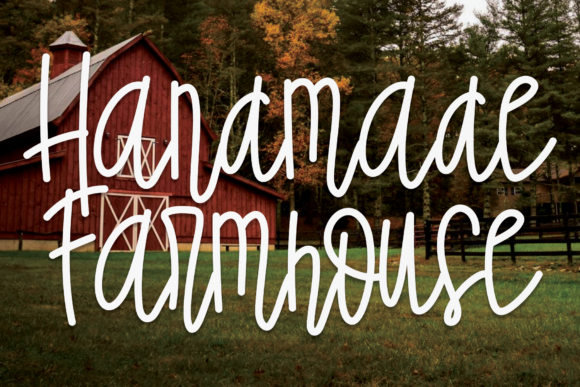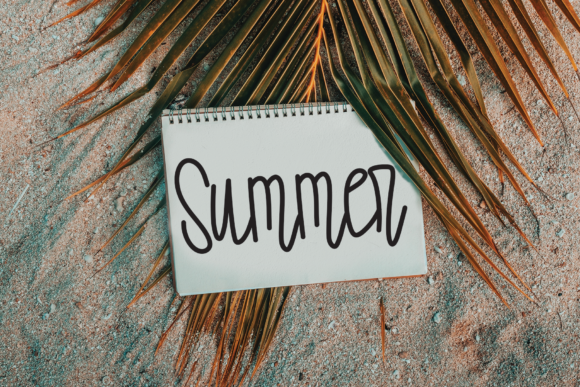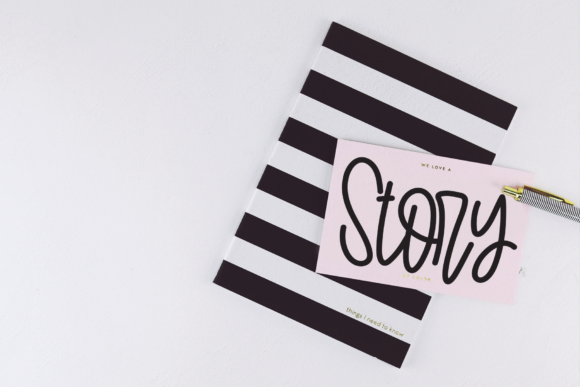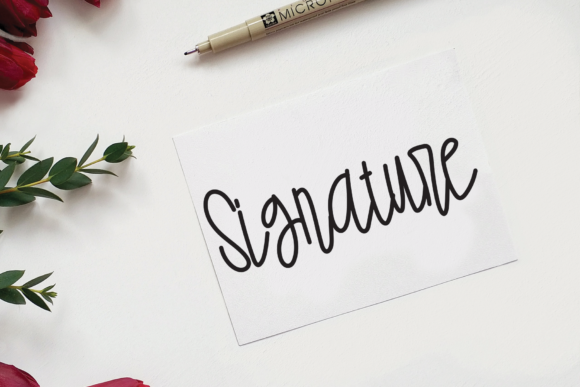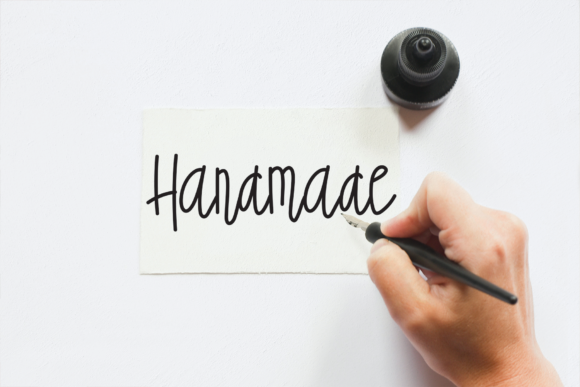
Handmade Farmhouse Font
About Handmade Farmhouse Font
Handmade Farmhouse is a cool, asymmetric and casual handwritten font. Its informal style will make this font a go-to choice for each of the creations that require a relaxed touch.